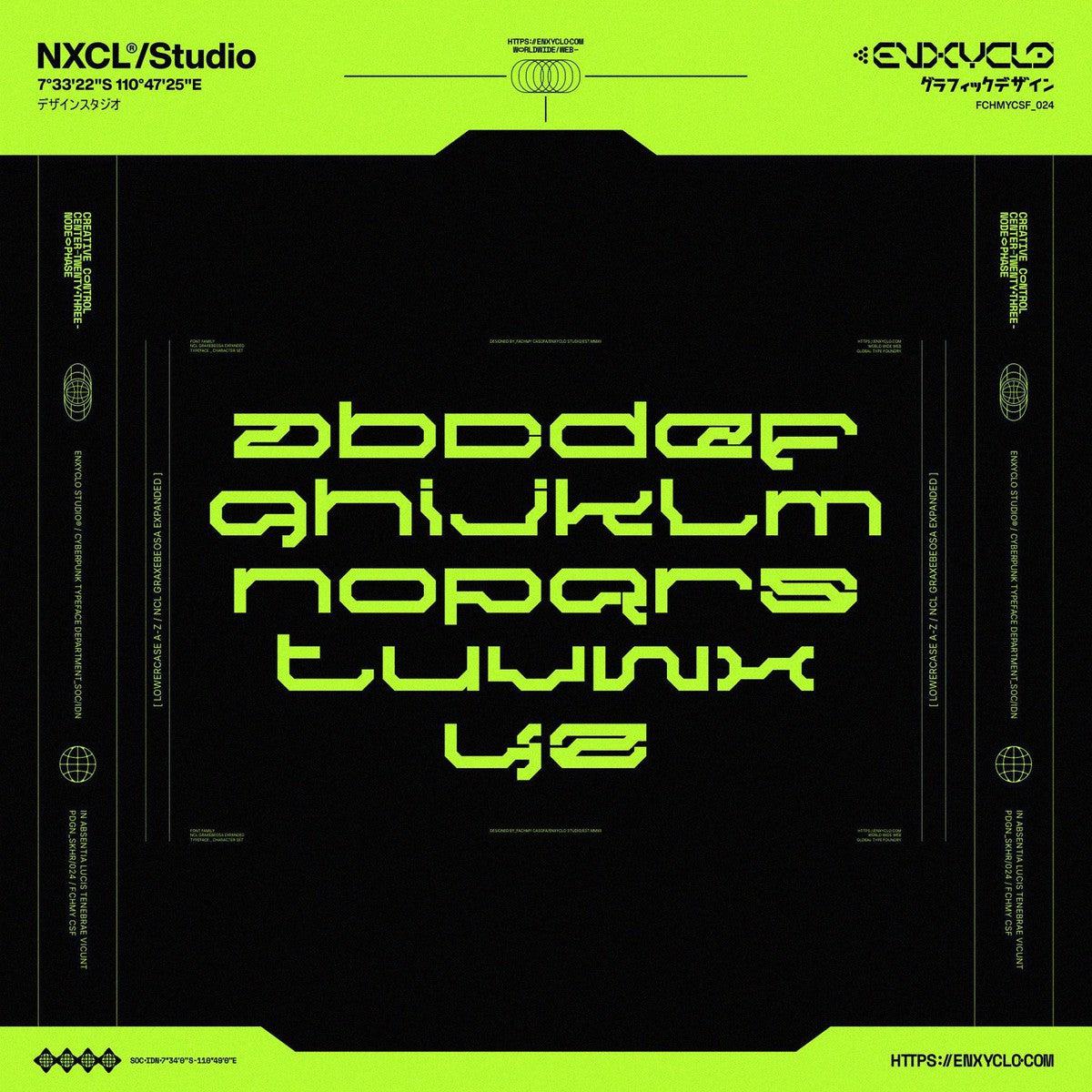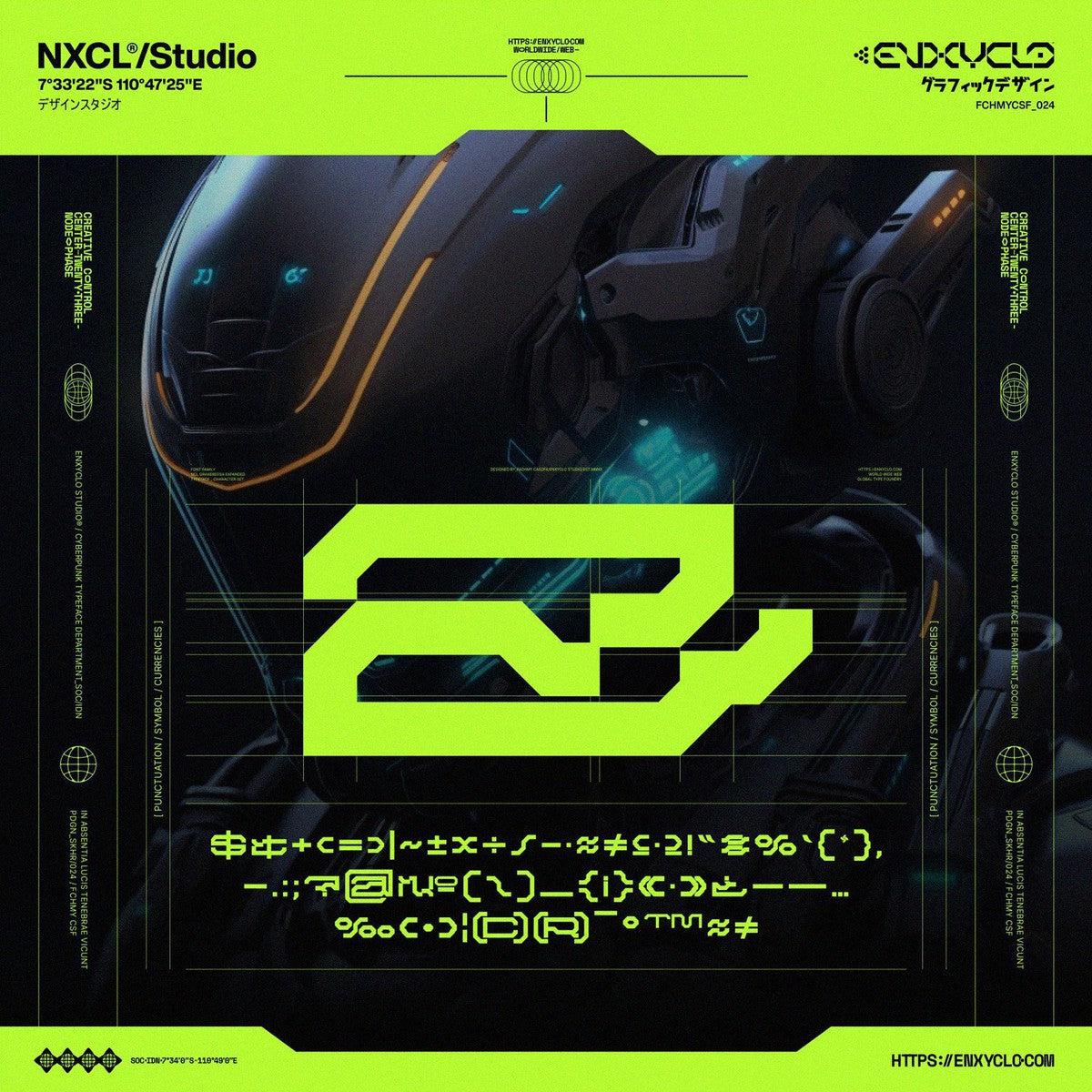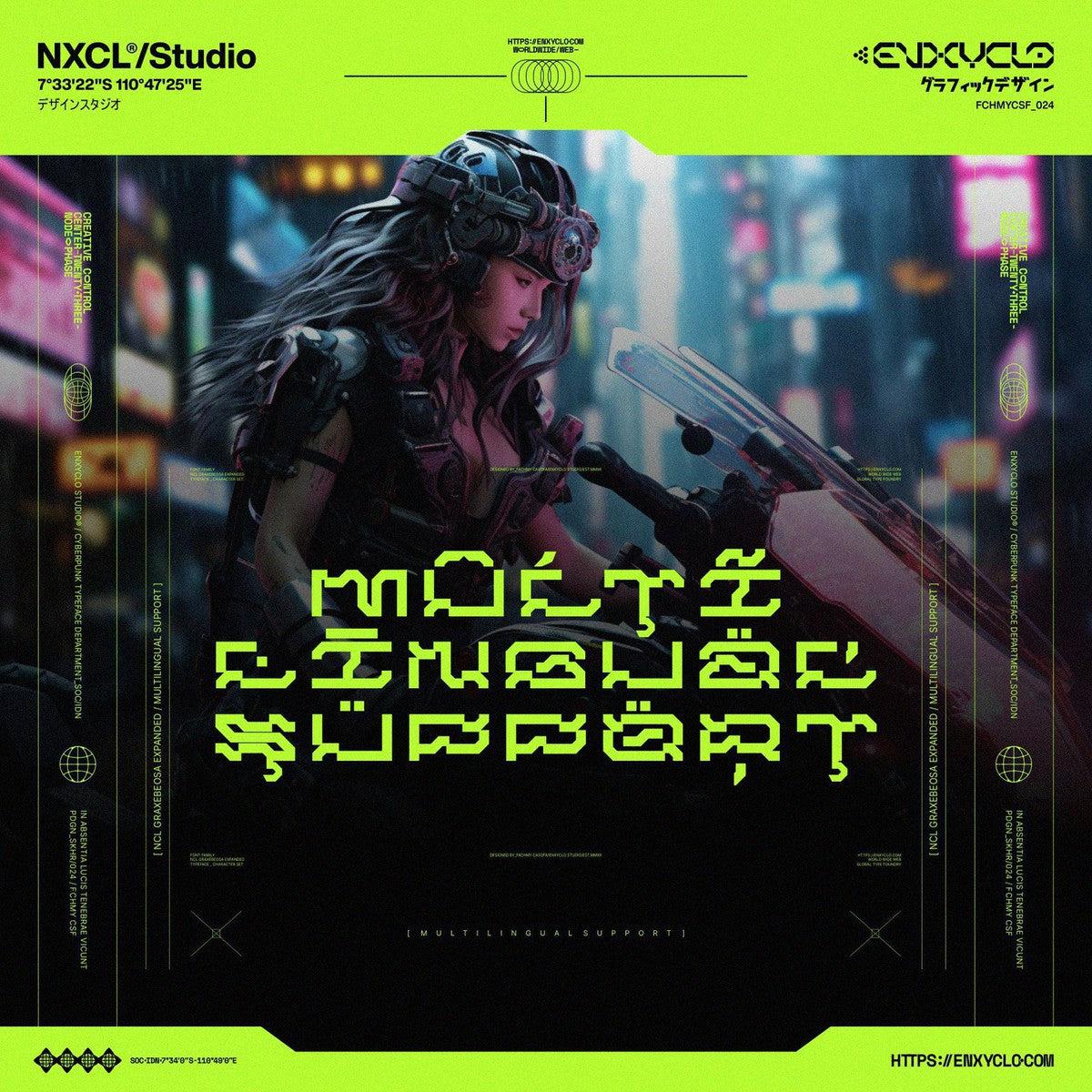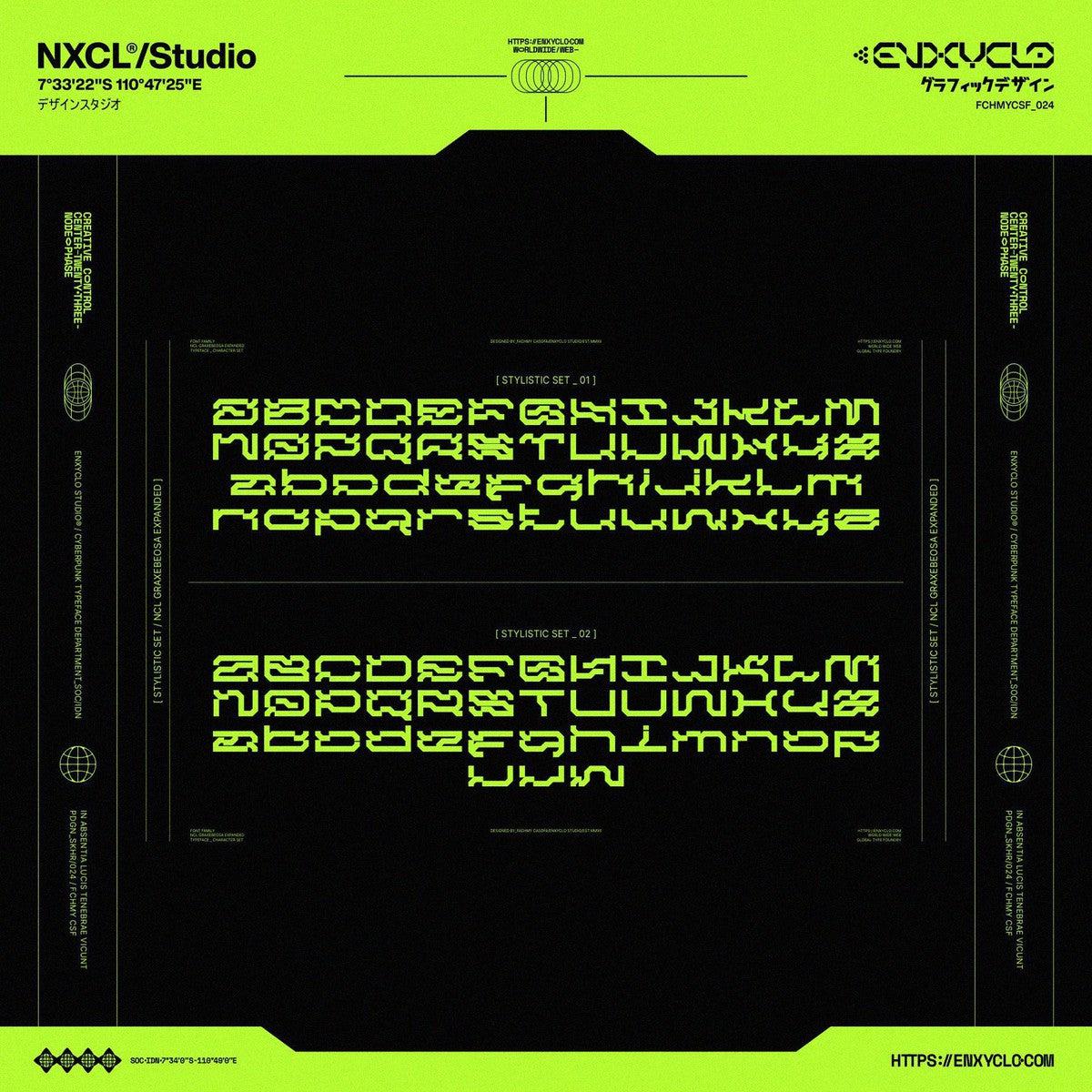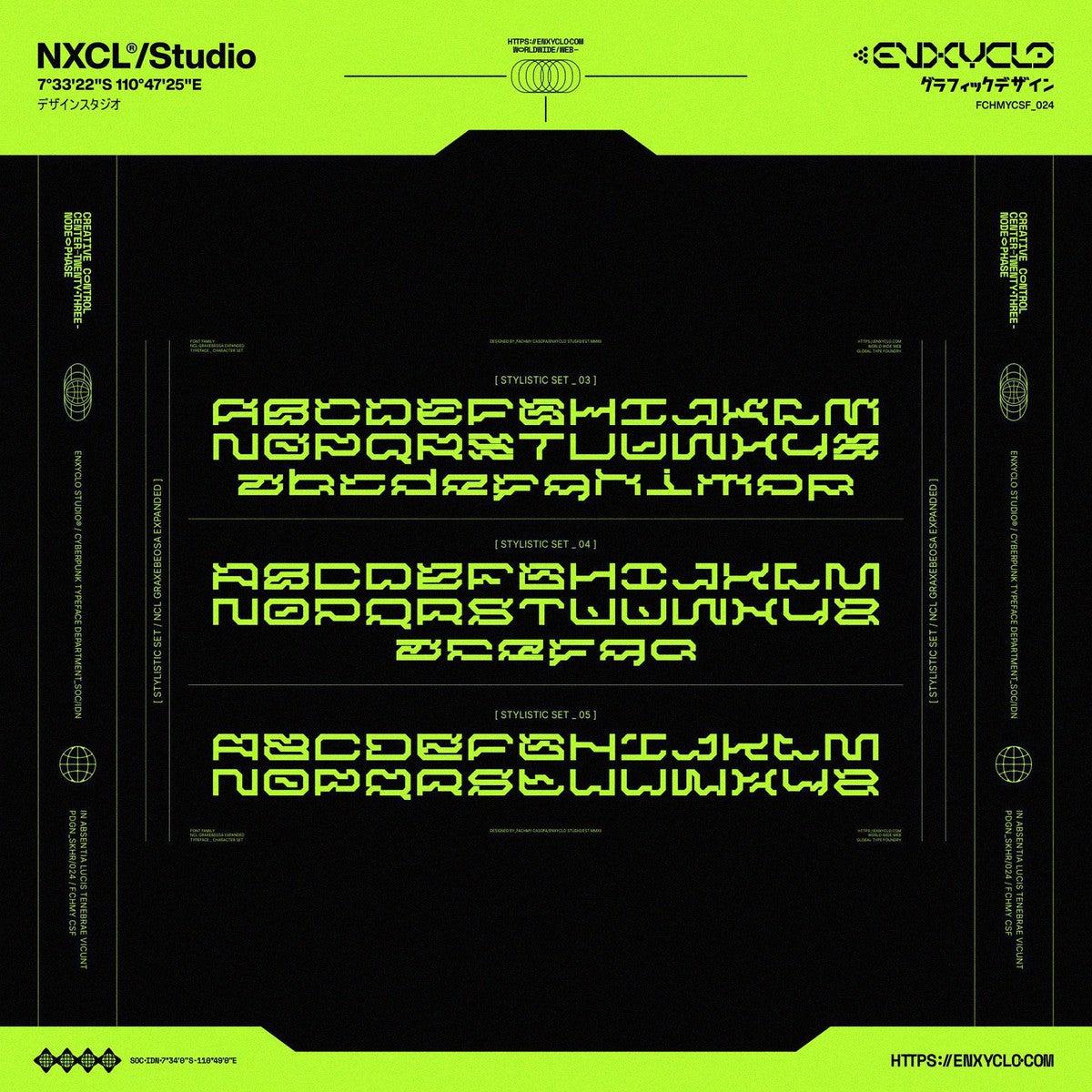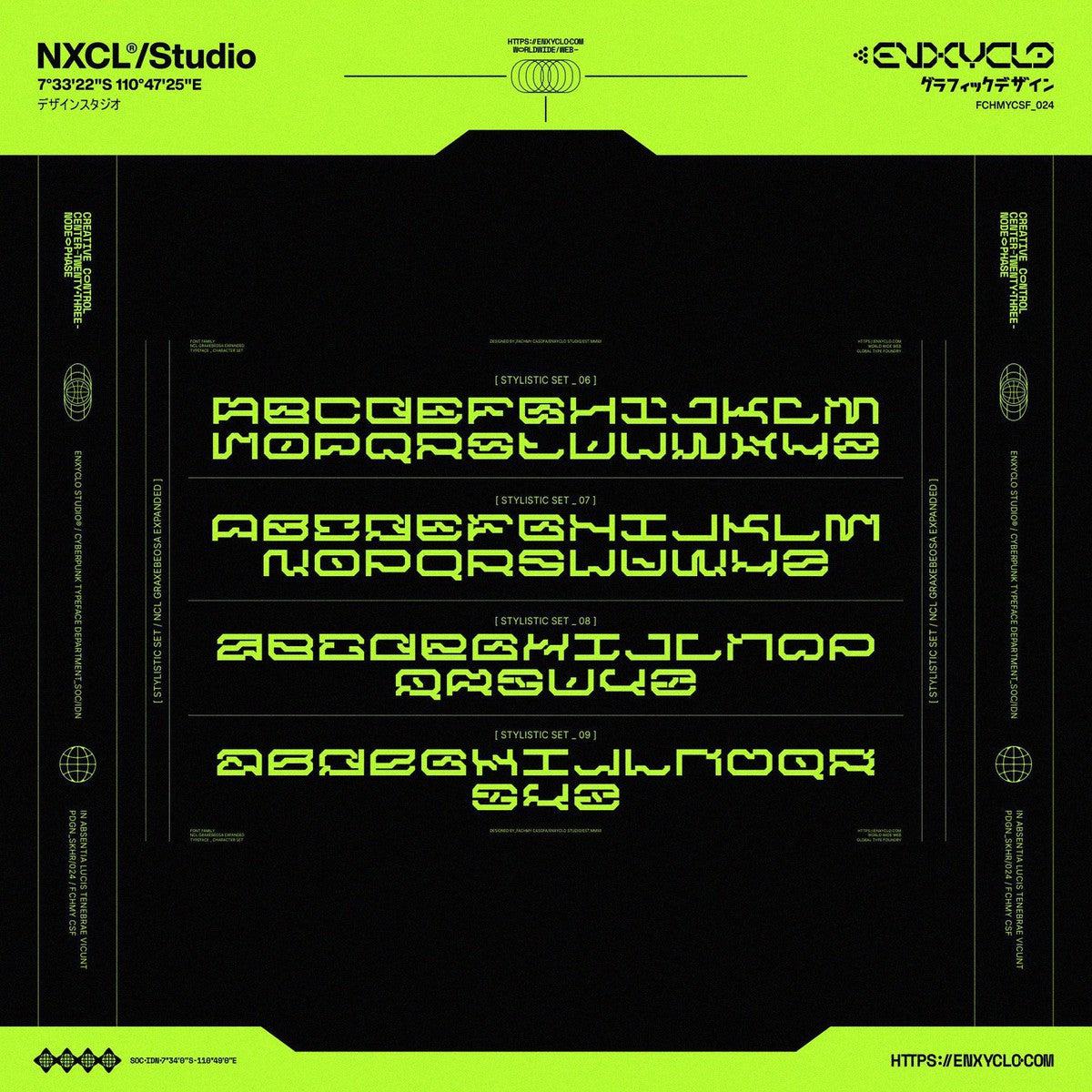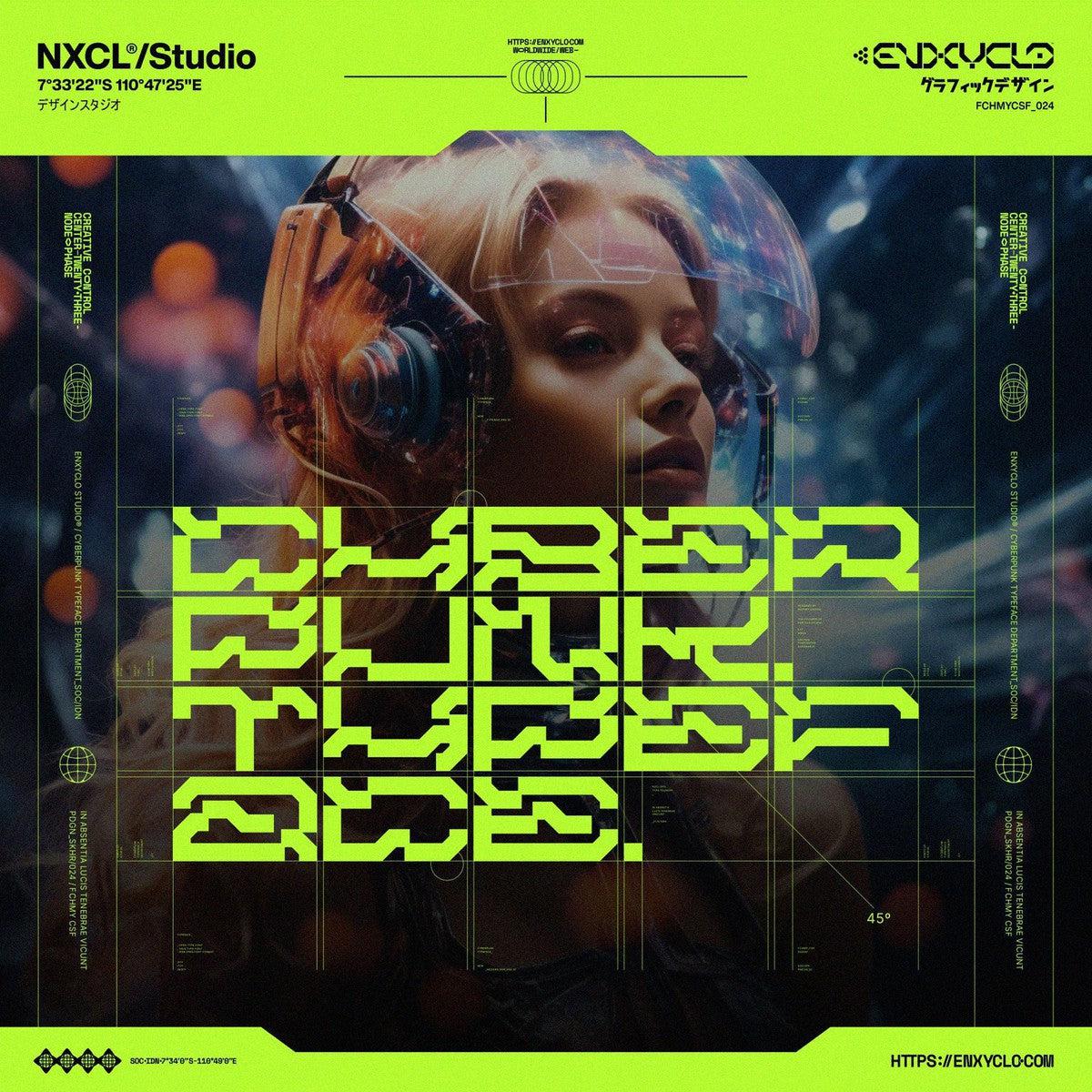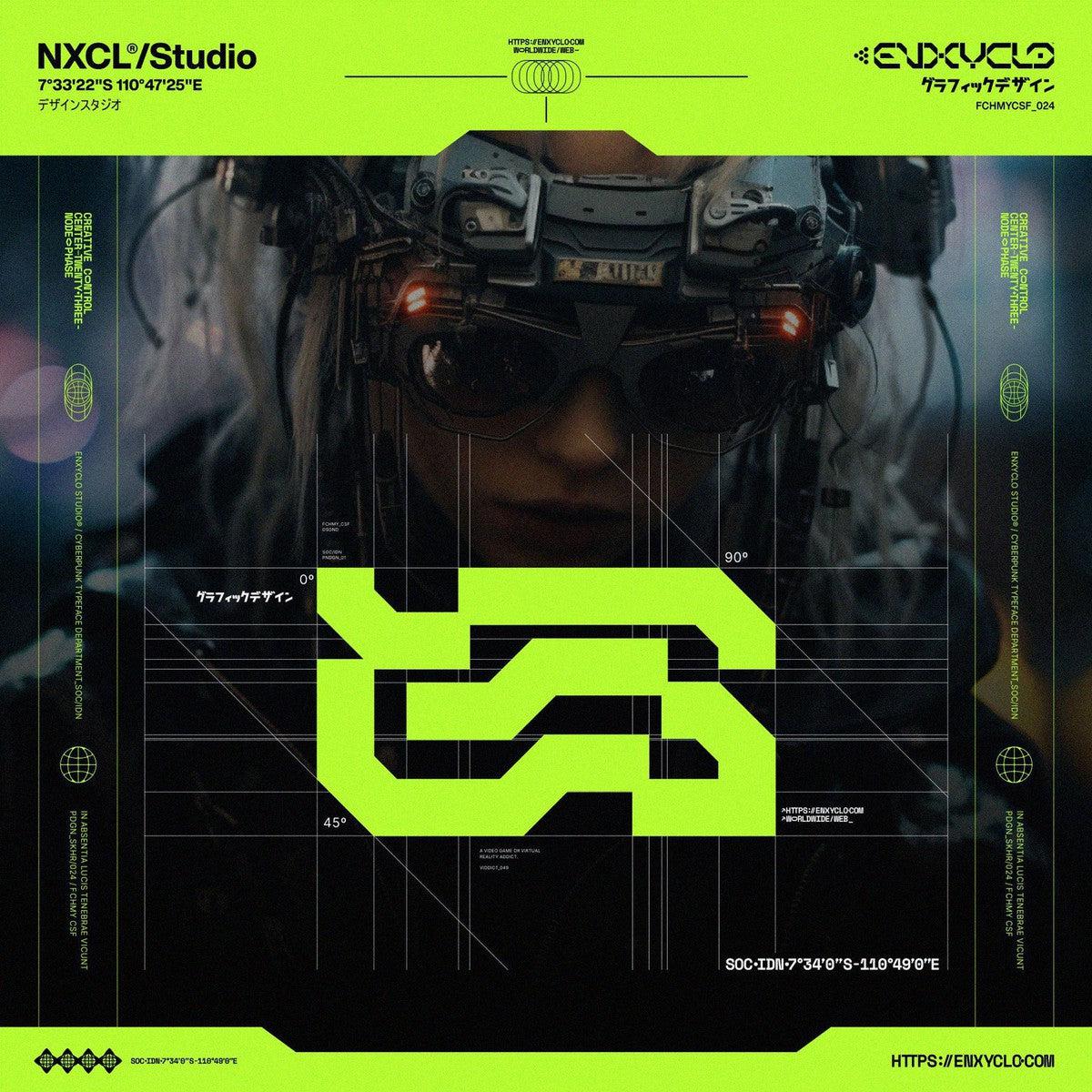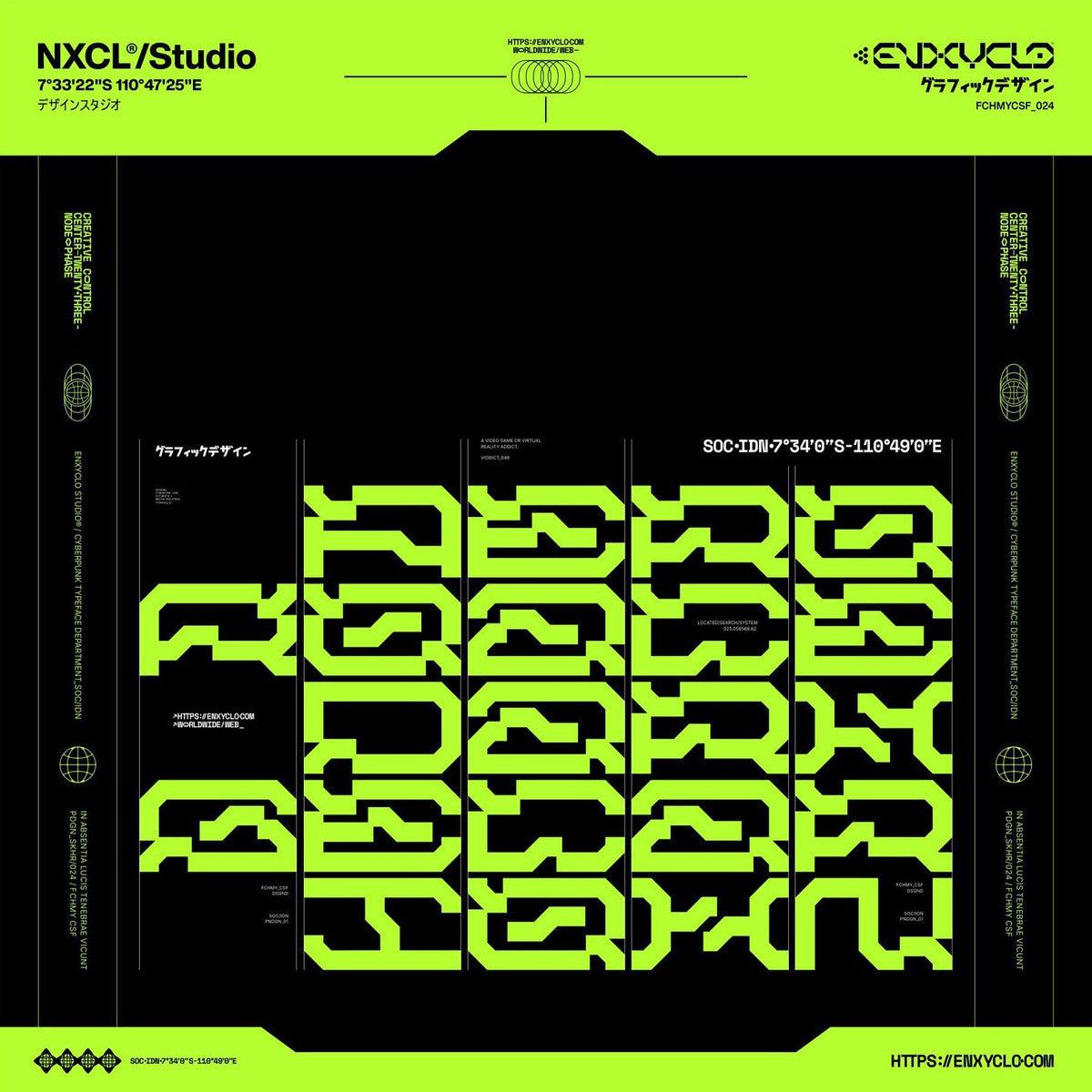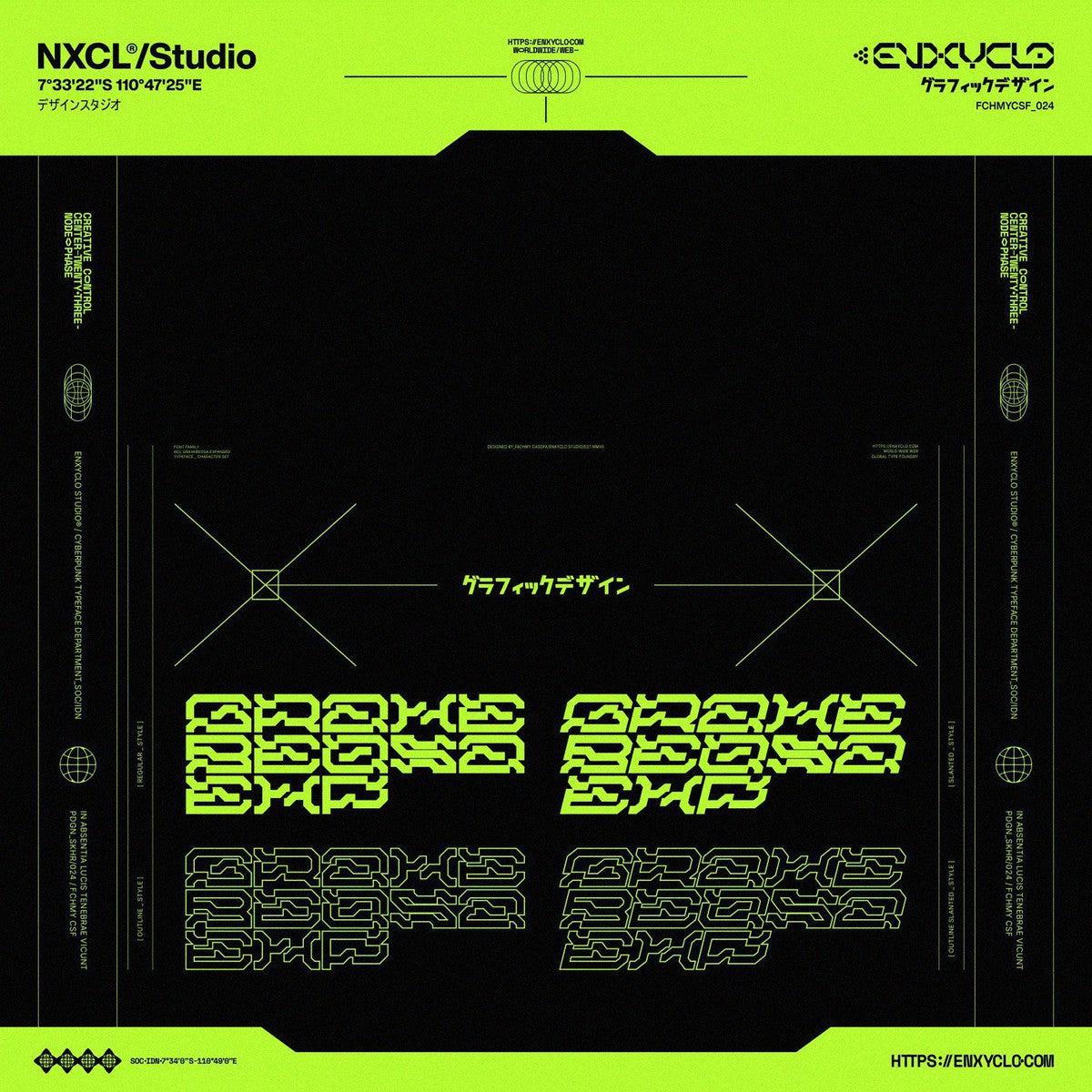
NCL Graxebeosa Expanded - Cyberpunk Futuristic Techno Mecha Font
GRAXE BEOSA - Expanded
The NCL Graxebeosa Expanded is a cyberpunk futuristic techno mecha font featuring four styles: Regular, Slanted, Outline, and Outline Slanted. It includes True Type Font (TTF), Open Type Font (OTF), and Web Open Font Format (WOFF1 & WOFF2), with a total of 2432 glyphs, uppercase and lowercase letters, numerals, punctuation, symbols, and stylistic sets 1-9. The font also offers multilingual support
Ideal for modern cyberpunk and futuristic design projects. Perfect for websites, posters, logos, and album covers, ensuring a unique and innovative aesthetic that enhances visual storytelling.